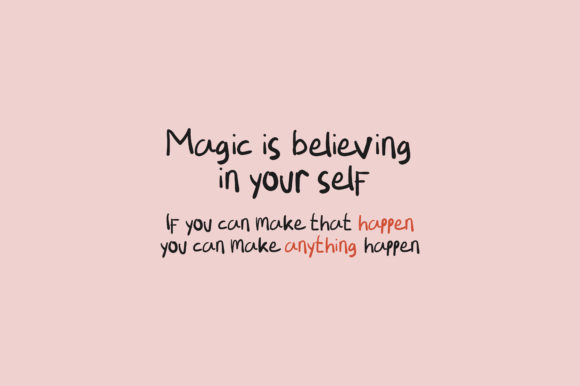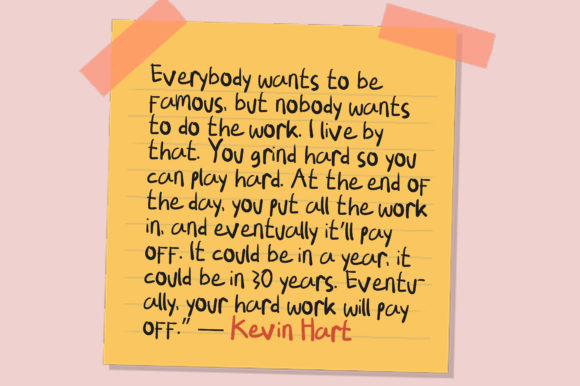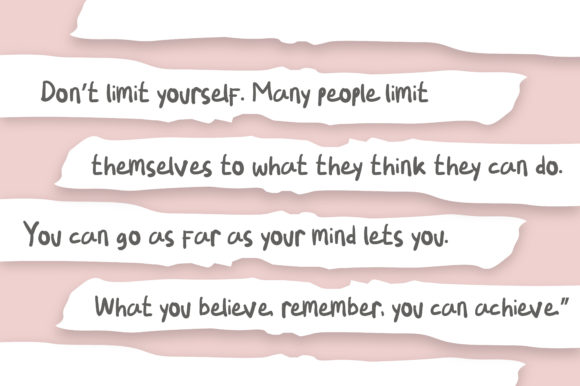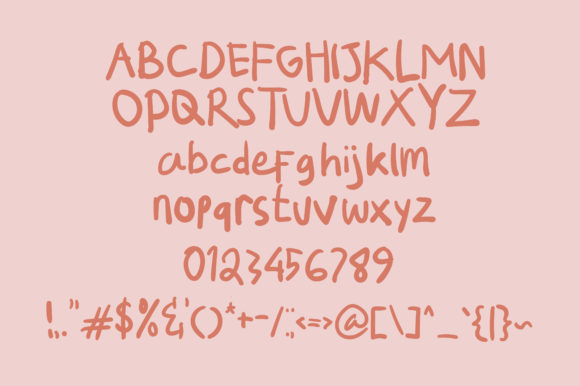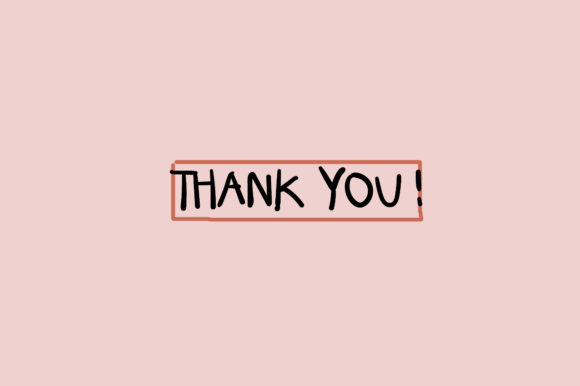
Logicus Font
About Logicus Font
Logicus is a handwritten font that is written directly with a pen, very cute and fun suitable for making quotes, children’s posters, children’s book poster designs and fun designs
supported with all English characters and standard punctuation